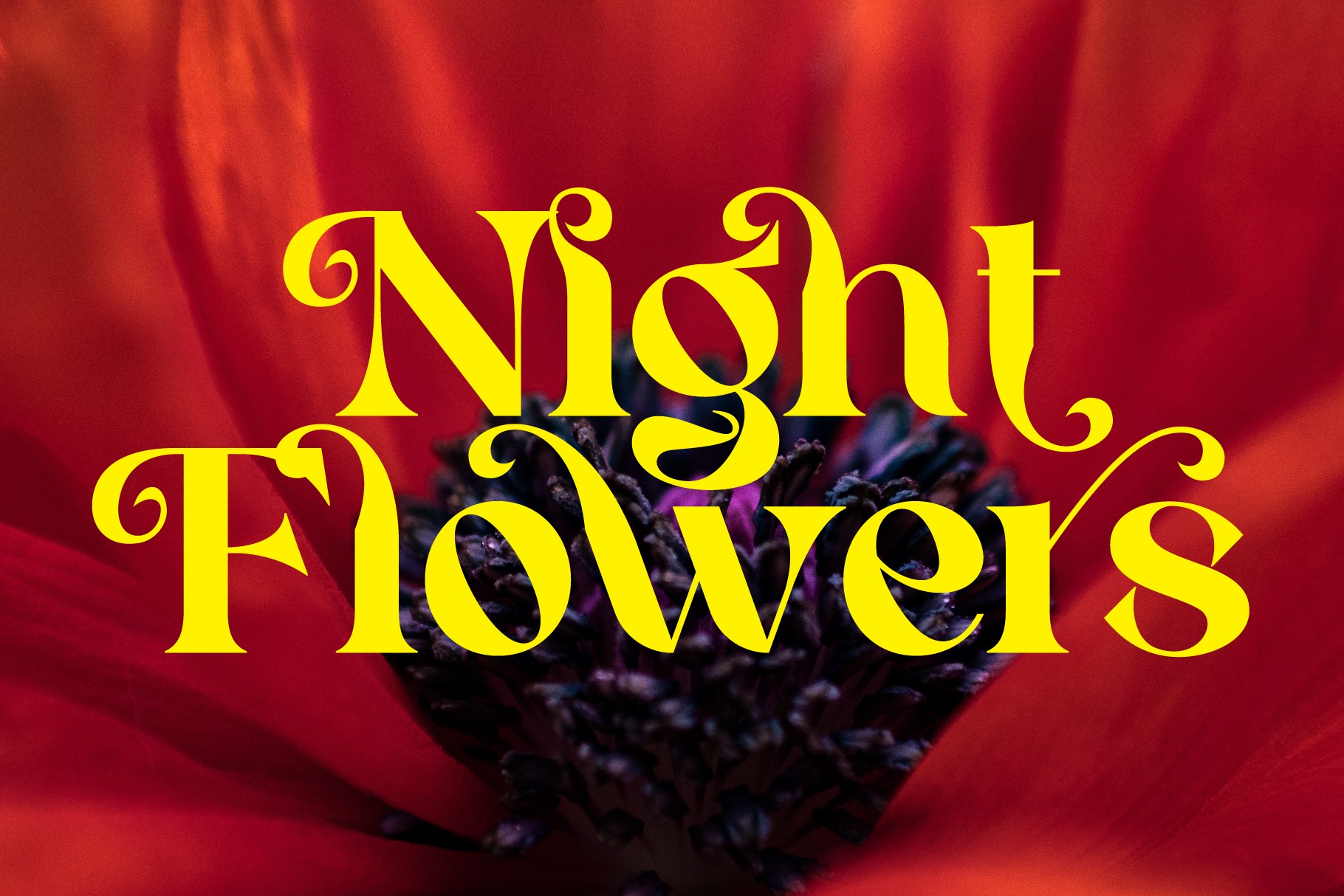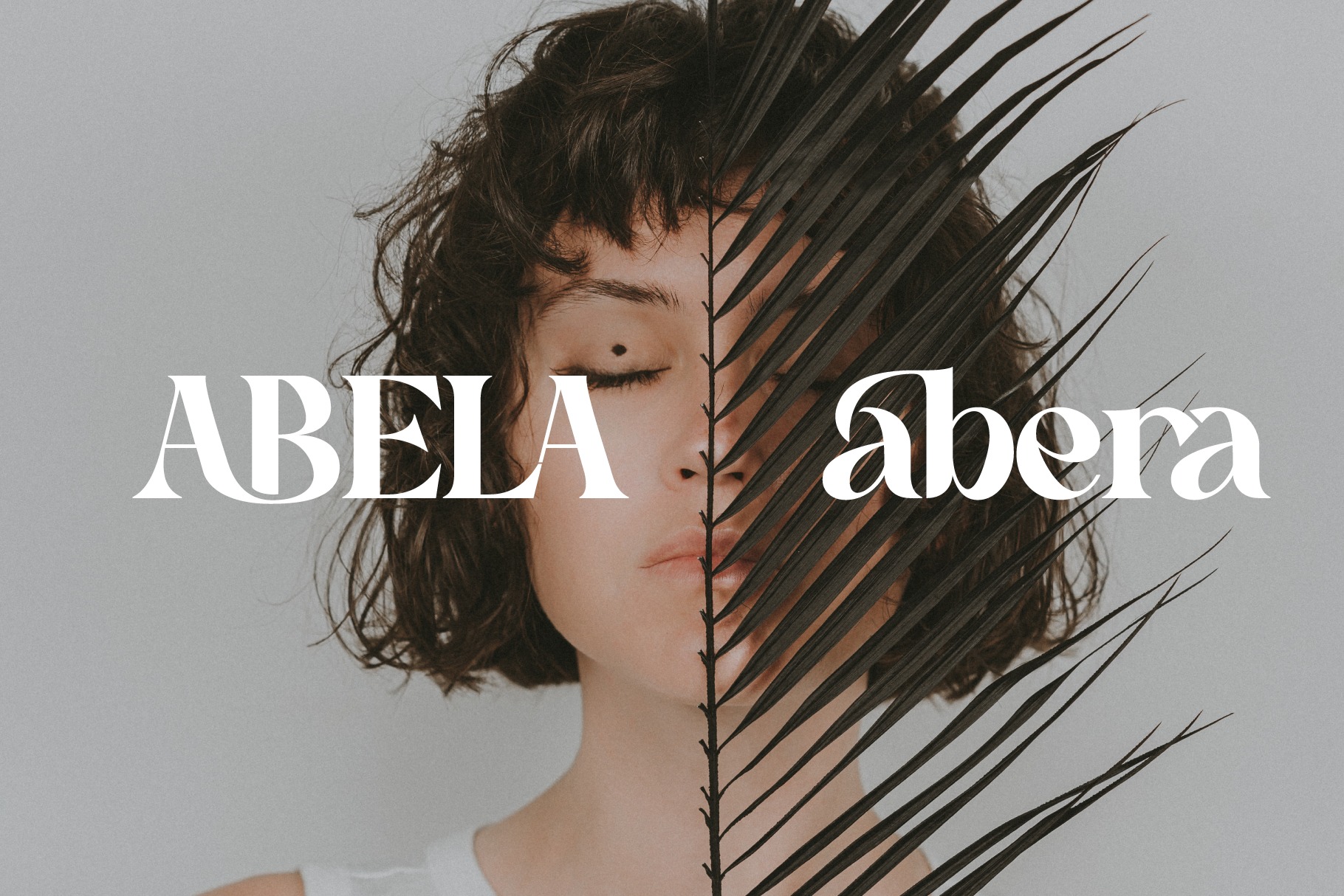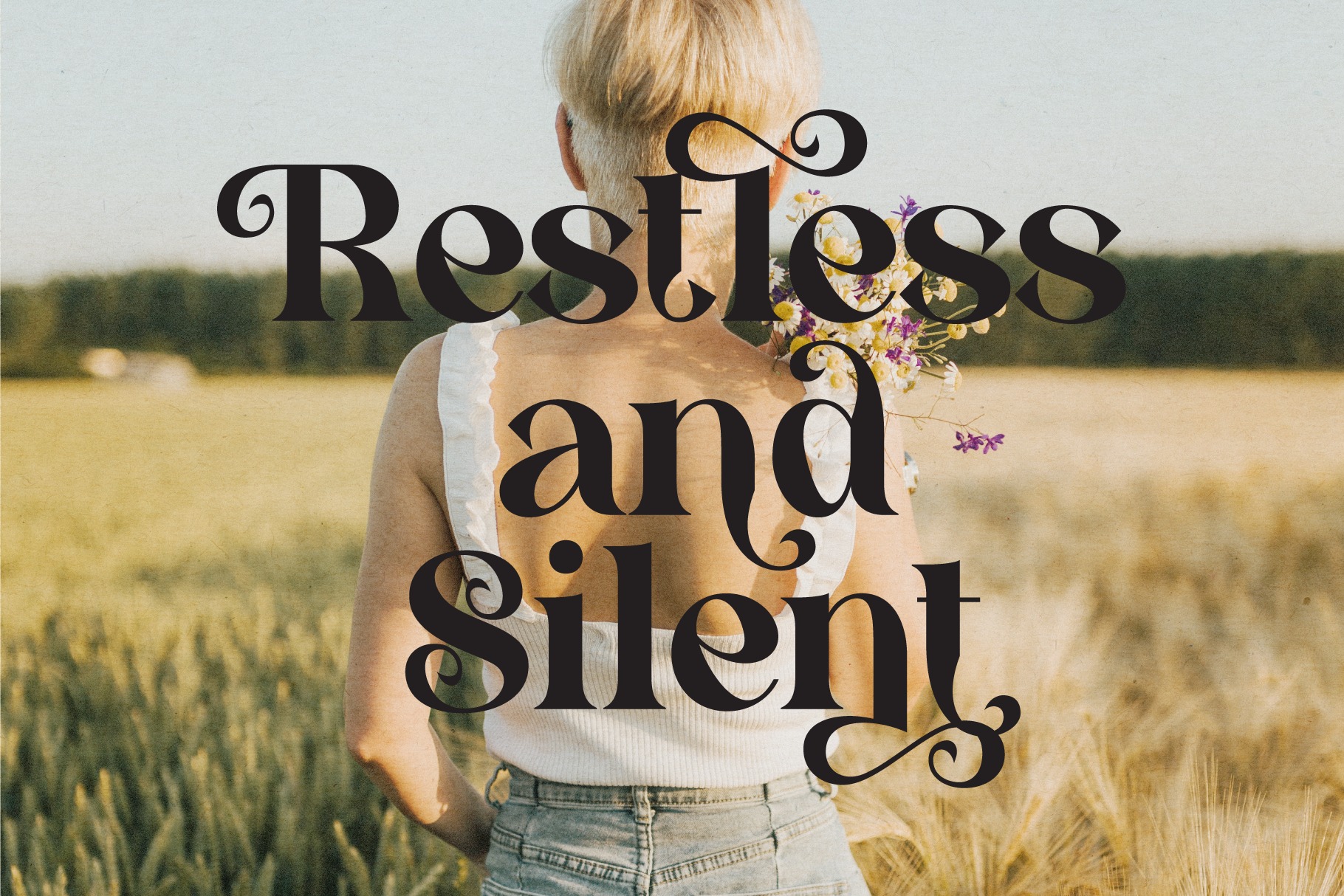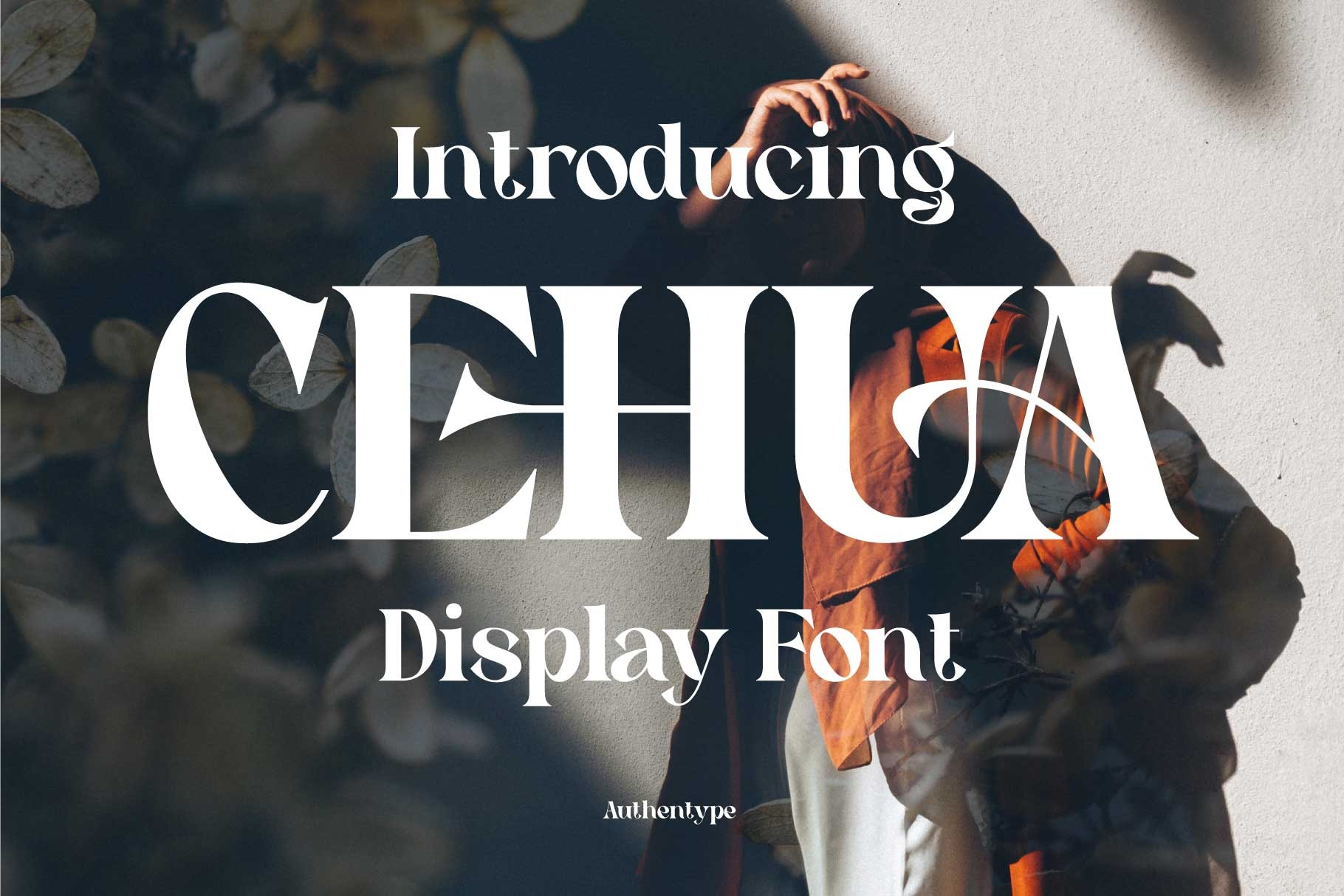
Cehua Serif Font
This is an elegant and bold lettered serif font from designer Authentype. It maintains its classy calligraphic influences while feeling contemporary and fresh. Cehua elegant serif font work well for beauty product branding because Cehua contain a variety of letters and ligatures that add a feminine feel to your designs.